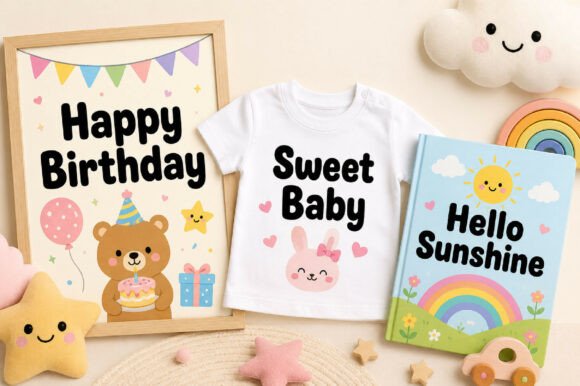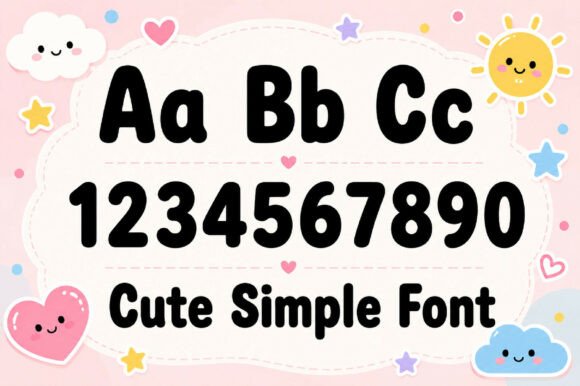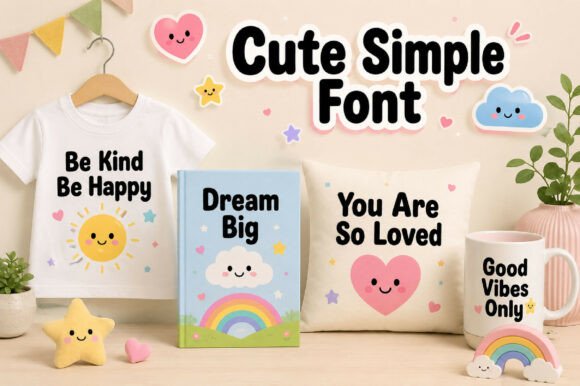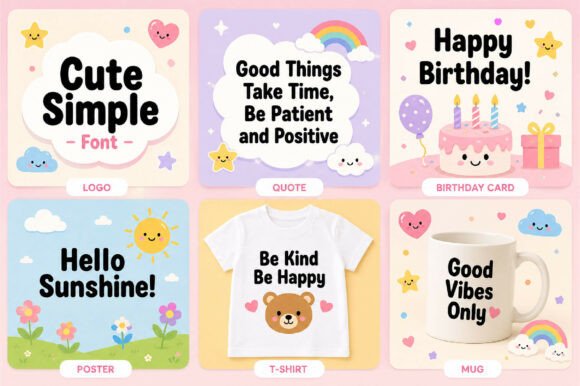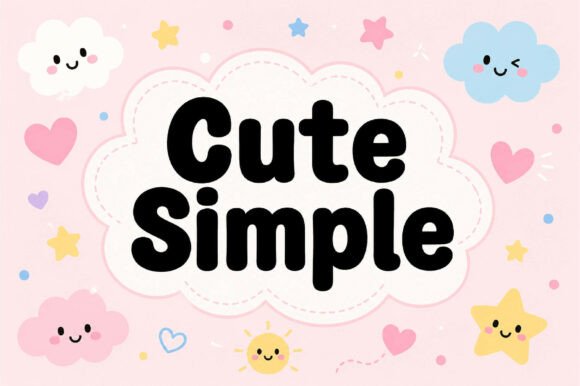
Cute Simple Font: Add a Touch of Whimsy to Your Designs
Are you looking for a font that can add a dash of fun and playfulness to your designs? Look no further than Cute Simple, a heavy-weight rounded display font that’s sure to bring a smile to your audience’s faces. With its massive, “bubbly” letterforms and perfectly softened corners, this typeface is the perfect choice for designers and crafters who want to create youthful, engaging, and approachable visual identities.
The Characteristics of Cute Simple Font
Cute Simple is a ultra-bold display font that features a clean, geometric silhouette with an organic, friendly rhythm. Its massive letterforms are designed to be attention-grabbing, with perfectly softened corners that give the font a sense of warmth and approachability. The font’s visual weight is carefully balanced to create a sense of professionalism, while its playful and whimsical feel makes it perfect for designs that need to appeal to a younger audience.
Perfect for Youth-Oriented Designs
Cute Simple is an extraordinary choice for youth-oriented apparel, children’s book titles, nursery decor, and playful stickers. Its bold and playful design makes it perfect for creating eye-catching headlines that will pop with a signature and lovable presence. Whether you’re designing a t-shirt for kids, a children’s book cover, or a nursery wall art, Cute Simple is sure to deliver a sense of joy and wonder that will captivate your audience.
Key Features of Cute Simple Font
- Ultra-bold visual weight: Cute Simple has a massive, attention-grabbing presence that makes it perfect for headlines and titles.
- Clean, geometric silhouette: The font’s clean and simple design makes it easy to read and understand, even at large sizes.
- Perfectly softened corners: The font’s softened corners give it a warm and approachable feel that’s perfect for youthful designs.
- Organic, friendly rhythm: Cute Simple has a natural, friendly feel that makes it perfect for designs that need to appeal to a younger audience.
How to Use Cute Simple Font in Your Designs
Cute Simple is a versatile font that can be used in a variety of design contexts. Here are a few ideas to get you started:
- Children’s book titles: Cute Simple is perfect for creating eye-catching book covers that will appeal to kids and parents alike.
- Youth-oriented apparel: Use Cute Simple to create bold and playful designs for t-shirts, hoodies, and other youth-oriented apparel.
- Nursery decor: Cute Simple is a great choice for nursery wall art, decals, and other decorative elements.
- Playful stickers: Use Cute Simple to create fun and playful stickers that will add a touch of whimsy to any design.
Why Choose Cute Simple Font?
Cute Simple is more than just a font – it’s a design solution that can help you create visual identities that are both professional and playful. Here are just a few reasons why you should choose Cute Simple for your next design project:
- Unique and attention-grabbing: Cute Simple is a one-of-a-kind font that’s sure to grab attention and make your designs stand out.
- Professional and playful: The font’s ultra-bold visual weight and clean, geometric silhouette make it perfect for creating professional-looking designs that are also playful and fun.
- Perfect for youthful designs: Cute Simple is specifically designed for youthful designs, making it the perfect choice for designers and crafters who work with kids and young adults.
| Author | Bundle |
Cute Simple is a font that’s sure to bring a touch of whimsy and fun to your designs. With its massive, “bubbly” letterforms and perfectly softened corners, this typeface is the perfect choice for designers and crafters who want to create youthful, engaging, and approachable visual identities. Whether you’re designing a children’s book cover, a youth-oriented apparel, or a nursery wall art, Cute Simple is sure to deliver a sense of joy and wonder that will captivate your audience.